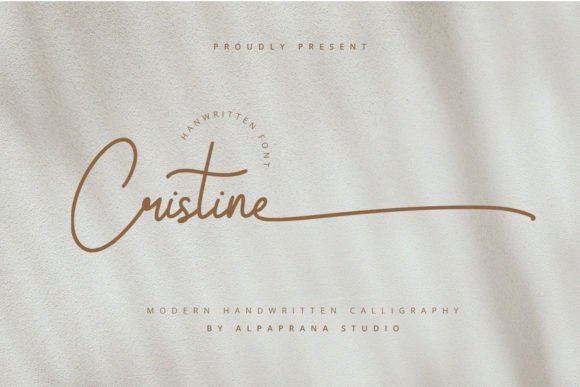
The Perfect Blend of Style and Casualness: Introducing Cristine Font
There’s something magical about the first time you see a beautiful handwritten font come to life on a page or screen. It’s the spark that ignites a creative idea, the catalyst that turns a simple design into a stunning work of art. For designers, the quest for the perfect font is an ongoing journey, and we’re excited to introduce Cristine Font – a stylish handwritten font that’s sure to capture the essence of your brand.
Cristine Font is more than just a font; it’s a tool that can elevate your design projects to new heights. With its authentic and casual feel, it’s perfect for branding, logo design, lettering, and more. Whether you’re creating a logo for a fashion brand or designing a poster for a special event, Cristine Font is the perfect companion to bring your vision to life.
Cristine Font Key Features
- Unique Characteristics: Elegant script design, highly legible, and suitable for both body text and display text
- Font Style: Script, Modern Script
Cristine Font Review
Overall, I think Cristine is a lovely font that’s perfect for projects that need a touch of elegance. It works well in headings ✨, adding a sense of sophistication to any design. The subtle variations in letterform make it easy to read, even at smaller font sizes.
One of the standout features of Cristine is its versatility ✨. It can be used in a range of contexts, from formal invitations to magazine articles, and still looks great. The font is also highly legible, making it perfect for long blocks of text.
While Cristine is a great font, it’s not without its limitations. One of the main issues is its lack of expressiveness ⚠️. The font is quite formal and doesn’t lend itself well to projects that need a more playful tone. Additionally, the font can look a bit too clean ⚠️, which may not be suitable for projects that need a bit of texture or visual interest.
Recommendation
I would recommend Cristine for projects that need a touch of elegance and sophistication. However, if you’re looking for a font with a bit more personality or expressiveness, you may want to consider other options.
- Highly legible, even at small font sizes
- Perfect for headings and titles
- Versatile and suitable for a range of contexts
- Lack of expressiveness may limit its use in certain projects
- May look too clean for projects that need texture or visual interest
Cristine Font: A Practical Application Guide
For a professional look, use Cristine Font in headings and titles, and pair it with a clean sans-serif font for body text.
For a creative look, use Cristine Font in combination with bold lines and bright colors to create a striking visual effect.
For a polished look, use Cristine Font consistently throughout your presentation or document.
Cristine Font is ideal for:
- Fashion and lifestyle marketing materials.